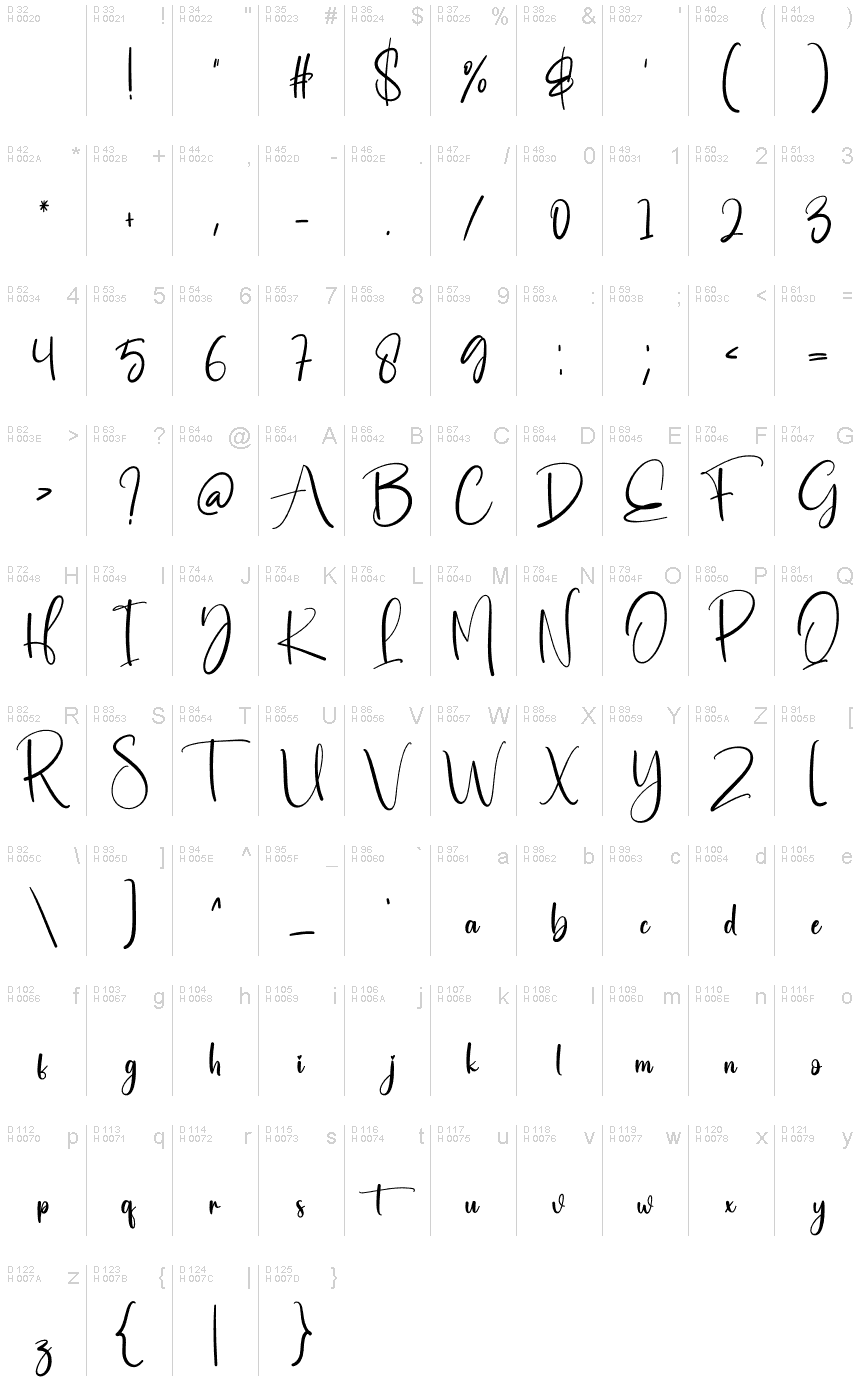
Handiwork
Handiwork, a charming creation by Scratchones, is a handwritten font that brings the warmth and authenticity of human touch to the digital realm. Its semi-light weight exudes a delicate and approachable vibe, inviting readers into each word with its personal flair. The casual elegance of Handiwork makes it an excellent choice for projects seeking to convey intimacy and originality, from bespoke invitations to branding elements that require a dash of individuality.
With its fluid strokes and subtle imperfections, this font stands out as both aesthetically pleasing and remarkably versatile for designers looking to infuse their work with character and soul.